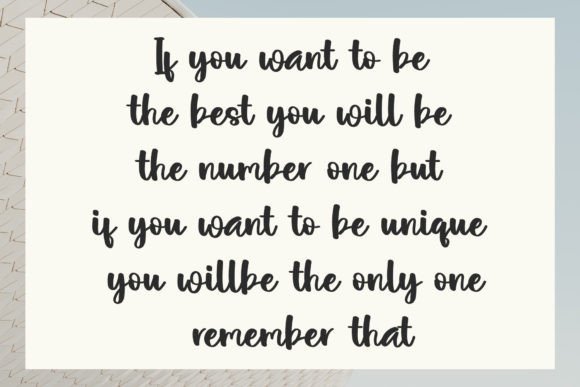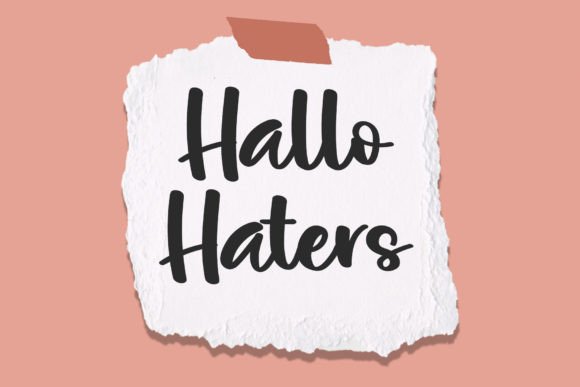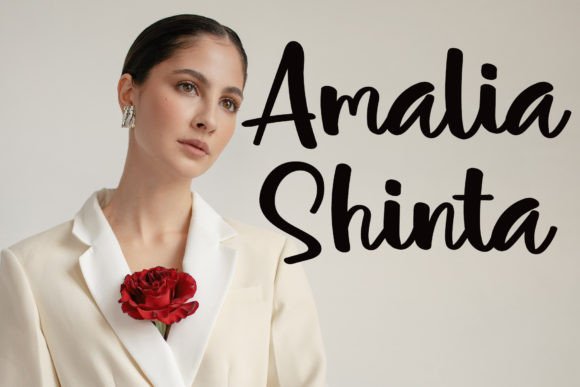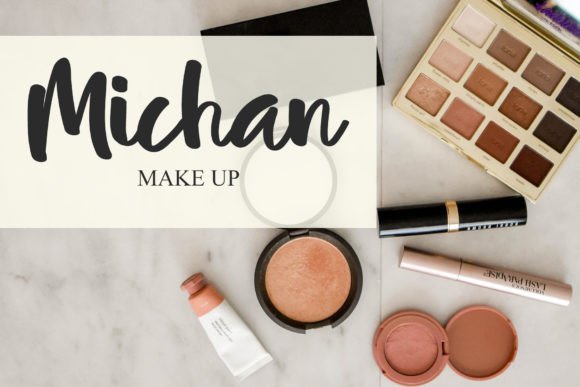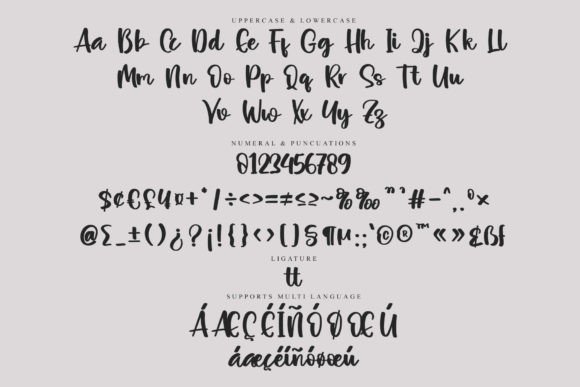
The Perfect Font for a Touch of Luxury
Have you ever stared at a blank canvas, eager to bring your creative vision to life, only to be stuck on the perfect font? We’ve all been there. The right font can elevate your design from ordinary to extraordinary, and that’s exactly what the Jucky Font does.
This beautiful handwritten font is designed to add a touch of luxury to any project, whether it’s a wedding invitation, a branding package, or a social media campaign. With its elegant, flowing characters, the Jucky Font is sure to make your design stand out from the crowd.
For designers, the Jucky Font is a valuable addition to any toolkit, offering a unique and stylish way to communicate with your audience. Whether you’re a seasoned pro or just starting out, this font is sure to inspire your creativity and take your designs to the next level.
Jucky Font Key Features
- Character Set: The font features a comprehensive character set, including Latin, Cyrillic, and Greek alphabets, as well as a wide range of punctuation marks and symbols.
- Unique Characteristics: Jucky Font features a unique, hand-drawn design with subtle irregularities and imperfections, giving it a distinctive and human touch.
Jucky Font Review
I recently had the chance to work with the Jucky Font, and I’m excited to share my honest review with you.
- The Jucky Font has a unique, quirky feel to it that can add some much-needed personality to your designs.
- The font is highly legible, even at smaller sizes, making it a great choice for body text or captions.
- The font’s irregularities can also help to break up large blocks of text and add visual interest to your layouts.
- The Jucky Font may not be the best choice for formal or professional designs, as its quirky feel can come across as unpolished or amateurish.
- The font’s irregularities can also make it difficult to read for some users, particularly those with visual impairments.
- The font’s limited character set may make it difficult to use for longer texts or complex layouts.
Overall, I think the Jucky Font is a great choice for designers looking to add some personality to their designs. While it may not be suitable for every project, it can be a great addition to your toolkit for more creative and experimental projects.
Tips for Getting the Most Out of Jucky Font
Use Jucky Font to add a touch of whimsy and personality to your designs. Experiment with different font sizes and colors to create visual interest. Consider using Jucky Font in combination with other creative fonts to add depth and texture to your designs.
Common Use Cases for Jucky Font
Jucky Font is perfect for creative projects such as:
– Blog posts and articles
– Infographics
– Party invitations and decorations
Alternatives to “Jucky Font” for Designers
Great Vibes is a beautiful, elegant script font that is perfect for creating a luxurious and sophisticated look. It is ideal for use in headings, titles, and other high-impact design elements. Great Vibes is a more refined and polished alternative to Jucky Font, with a more consistent and flowing style.
Comparison to Jucky Font: While Jucky Font has a more playful and quirky feel, Great Vibes is more formal and sophisticated. Great Vibes is a better choice when you want to create a sense of luxury and elegance, while Jucky Font is better suited for more casual and creative projects.